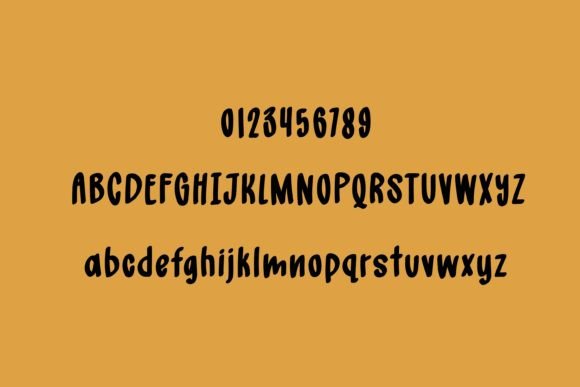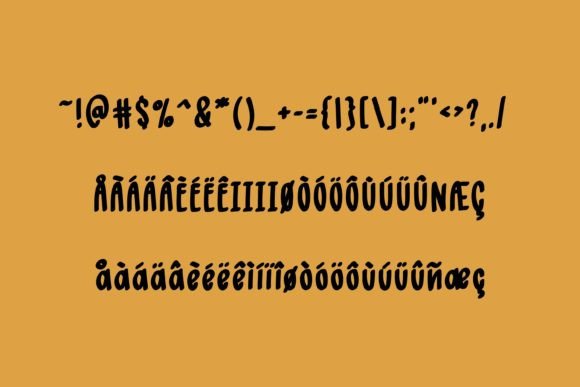
Introducing Goldwaves Font: Elevate Your Designs with a Touch of Handwritten Charm
In the world of typography, few fonts manage to strike a balance between boldness and simplicity. Goldwaves Font is one such gem that brings a beautifully bold yet simple handwritten style to your creative projects. With its smooth, rounded letters, Goldwaves adds a touch of warmth and personality to any design, making it perfect for a wide range of applications.
The Essence of Goldwaves Font
Goldwaves is more than just a font; it’s a way to infuse your designs with the effortless charm of hand-drawn letters. Its smooth, rounded style gives it a friendly and approachable feel, making it an excellent choice for designs that need to connect with their audience on a personal level. Whether you’re working on invitations, branding, posters, or any other creative project, Goldwaves brings a playful yet professional vibe that’s hard to achieve with more traditional fonts.
One of the standout features of Goldwaves Font is its versatility. This font isn’t limited to a specific type of project; it can be used across a broad spectrum of design applications. Need a font for a wedding invitation that exudes elegance and warmth? Goldwaves is up to the task. Looking for a playful yet professional font for your brand’s logo? Goldwaves fits the bill. Its adaptability makes it a valuable addition to any designer’s toolkit.
Crafting Invitations with Goldwaves
Invitations are often the first glimpse into the theme or tone of an event, and the font used can significantly impact the overall feel. Goldwaves Font, with its smooth and rounded letters, brings a sense of warmth and intimacy that’s perfect for wedding invitations, birthday parties, and other special occasions. It adds a personal touch that makes the invitation feel more heartfelt and engaging.
Branding with Goldwaves
In the realm of branding, establishing a strong visual identity is crucial. Goldwaves Font offers a unique blend of boldness and simplicity that can help your brand stand out. Its approachable and friendly vibe makes it an excellent choice for brands looking to connect with their audience on a more personal level. Whether you’re designing a logo, packaging, or marketing materials, Goldwaves can help you achieve a cohesive and inviting brand image.
Creating Posters and More with Goldwaves
Posters and other large-format designs are all about making a statement. With Goldwaves Font, you can create eye-catching posters that are not only bold but also inviting. Its readability, even at larger sizes, makes it an excellent choice for headlines and titles, while its charm and character ensure your posters stand out in a crowd.
Why Choose Goldwaves Font?
So, what makes Goldwaves Font a must-have for designers and crafters? Here are a few reasons:
- Unique Style: Goldwaves offers a unique blend of boldness and simplicity that’s hard to find in other fonts.
- Versatility: It’s suitable for a wide range of projects, from personal to professional.
- Approachable Vibe: The font’s smooth, rounded style gives it a friendly and approachable feel.
- Effortless Charm: It adds a touch of handwritten charm to your designs, making them more engaging.
Goldwaves Font is a beautifully bold yet simple handwritten font that can elevate your designs with its warmth and personality. Its smooth, rounded style makes it perfect for adding a playful yet professional vibe to any project. Whether you’re crafting invitations, working on branding, or creating posters, Goldwaves offers the versatility and charm you need to make your designs shine. With Goldwaves, you can bring a touch of effortless elegance to your creative projects and connect with your audience on a more personal level.
Incorporate Goldwaves Font into your design toolkit and discover the difference it can make in your work. Its unique blend of boldness, simplicity, and charm makes it an invaluable resource for designers and crafters looking to add a personal touch to their projects.